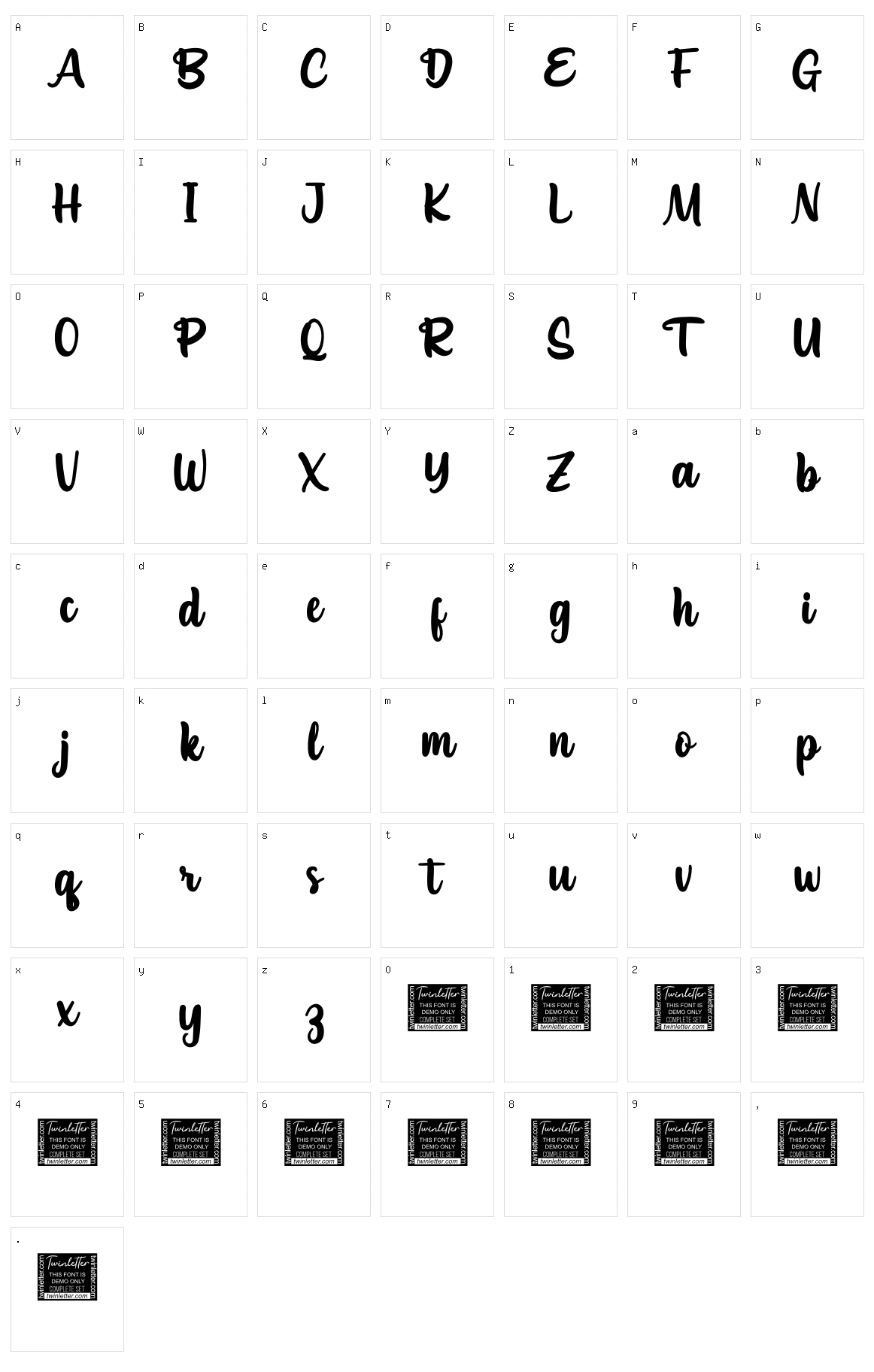
The free font Seatyio is carefully designed by twinletter, showcasing a thoughtful balance of creativity and usability and falls under the Script font style. When you download the ZIP file, it contains only 44.64 KB of font files, making it lightweight and quick to download. Please review the license details below to understand permitted usage and distribution rights. If license information is not available, we recommend using this font for personal projects only or contacting the author directly for commercial usage permissions.